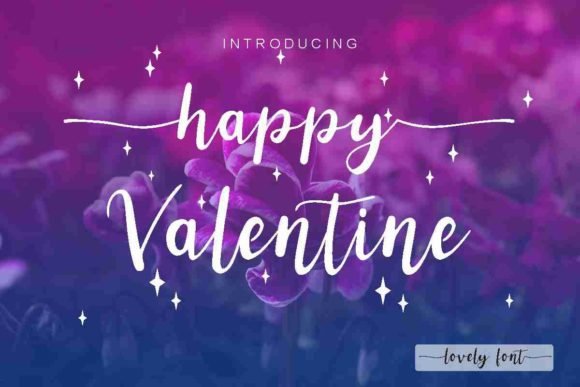
Love at First Sight: Discovering the Happy Valentine Font
There’s something magical about the moment when a font speaks to you, and you know it’s the one that will bring your creative vision to life. For designers, this moment is what makes all the hard work worth it – the thrill of finding that perfect font that elevates your project from ordinary to extraordinary. It’s a feeling that’s hard to put into words, but for those who’ve experienced it, it’s a rush of excitement and satisfaction that’s impossible to forget.
Enter the Happy Valentine Font, a beautifully crafted handwritten font that’s designed to bring joy and whimsy to your designs. With its playful, cursive script, this font is perfect for adding a touch of romance and elegance to your projects. Whether you’re creating a wedding invitation, a Valentine’s Day card, or simply want to add some personality to your brand’s social media graphics, the Happy Valentine Font is sure to be a valuable addition to your design toolkit.
Key Features of “Happy Valentine Font”
- Font Family: A collection of 4 unique font styles, including Happy Valentine, Happy Valentine Outline, Happy Valentine Shadow, and Happy Valentine Bold
- Unique Characteristics: The font features a playful, cursive design with heart-shaped accents, making it perfect for Valentine’s Day-themed projects and romantic designs
Designer Review: Happy Valentine Font
At first glance, Happy Valentine Font seems like a lovely addition to any project. ✨ The font’s playful, cursive script is reminiscent of handwritten love letters, perfect for a romantic theme. It’s also highly customizable, allowing designers to adjust the weight, spacing, and even the swashes to suit their needs. ✨ The font’s OpenType features are well-implemented, making it a joy to work with in design software.
However, I do have some concerns about the font’s limitations. ⚠️ For one, the font is only available in a single style, which may limit its versatility. Additionally, the font’s cursive script can make it difficult to read at smaller font sizes, which may not be ideal for projects that require a lot of text.
Here are some specific limitations to consider:
- Limited style options
- Difficult to read at smaller font sizes
- No bold or italic styles available
Overall, Happy Valentine Font is a charming addition to any design project, but it’s not without its limitations. If you’re looking for a font to add a touch of romance to your design, this might be a good choice. However, if you need a font that’s highly customizable or has a wide range of style options, you may want to consider other options.
The Happy Valentine Font is ideal for creating romantic and playful designs, such as:
– Valentine’s Day cards and invitations
– Wedding stationery and decorations
– Social media posts and graphics
– Blog posts and articles about love and relationships
To get the most out of the Happy Valentine Font, try combining it with other playful and romantic elements, such as:
– Hearts and flowers
– Pastel colors and soft textures
– Whimsical illustrations and graphics
Q: Can I customize the Happy Valentine Font?
Yes, the Happy Valentine Font is a highly customizable font that supports a wide range of OpenType features, including ligatures, swashes, and stylistic sets. You can access these features using a font editor or design software that supports OpenType fonts.